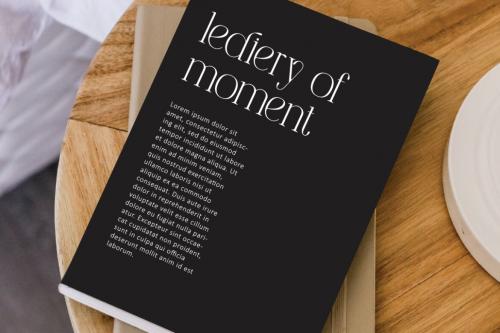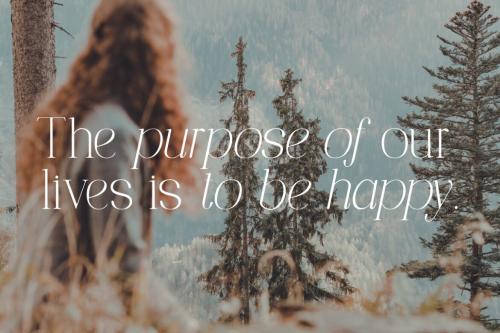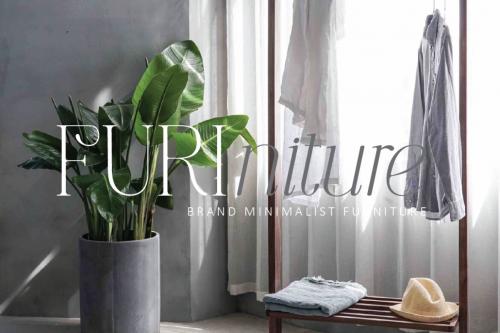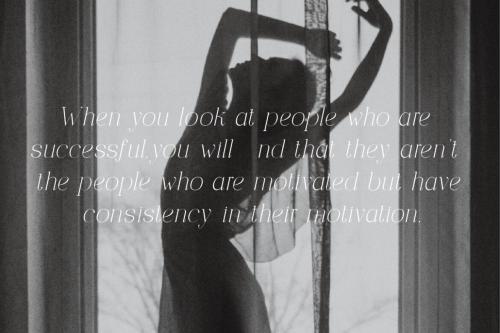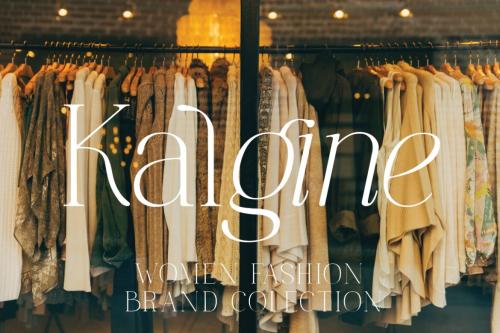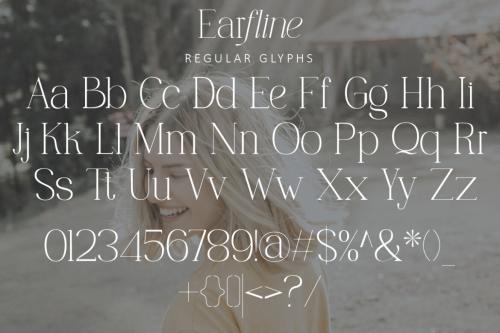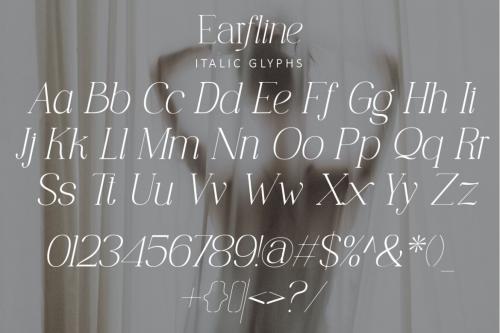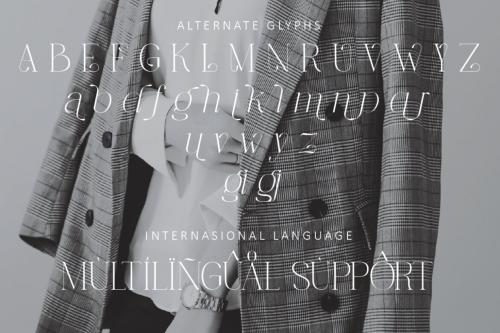
Earfline Modern serif Font typeface with beautiful alternate, special glyphs, ornament and multilingual support. It's a very versatile font that works great in large and small sizes. Perfect for editorial projects, Logo design, Clothing Branding, product packaging, magazine headers, or simply as a stylish text overlay to any background image.
Accented characters
Multiple Languages Supported
Features:
Alternate & Ligature
Lowercase and Uppercase
Numerals & Punctuation